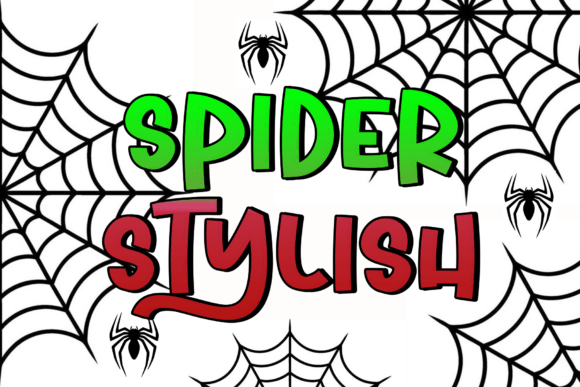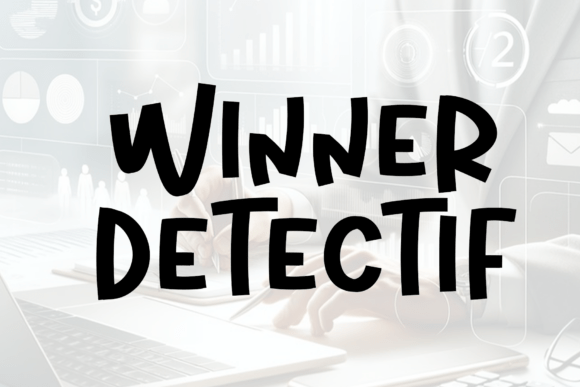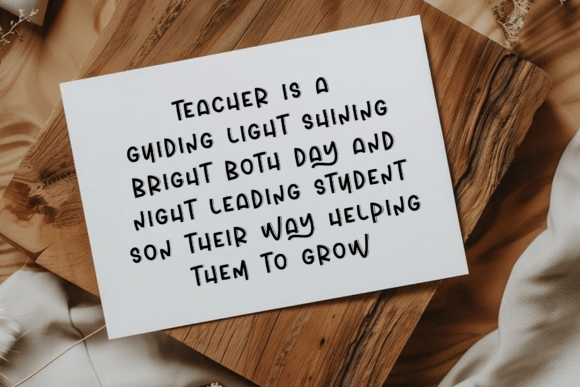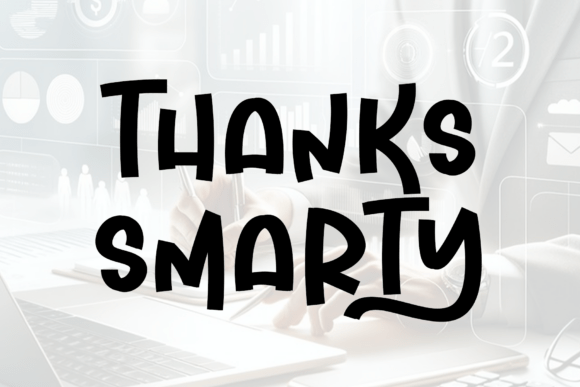
Discover the Charm of Delight Thursday Font: Elevate Your Designs with Elegance
In the world of typography, fonts play a crucial role in conveying messages, evoking emotions, and creating lasting impressions. For designers, crafters, and anyone looking to add a touch of elegance to their projects, Delight Thursday Font is a gem worth exploring. This lovely and timeless display font has been making waves in the design community, and for good reason. In this article, we’ll delve into what makes Delight Thursday Font a standout choice for creating eye-catching logos, branding, and quotes.
The Unique Charm of Delight Thursday Font
Delight Thursday Font is not just another typeface; it’s a masterpiece that brings a unique and beautiful touch to every letter. Its timeless appeal ensures that your designs never go out of style, making it an excellent investment for professionals and hobbyists alike. Whether you’re working on a logo, a branding project, or crafting inspirational quotes, this font is designed to make your work come alive with its elegant and distinctive character.
Why Choose Delight Thursday Font?
So, what sets Delight Thursday Font apart from the myriad of fonts available today? Here are a few reasons why it’s becoming a favorite among designers and crafters:
- Elegant and Timeless: Delight Thursday Font boasts an elegance that transcends fleeting trends. Its classic appeal ensures your designs remain relevant and stylish for years to come.
- Unique Touch: Each letter in the Delight Thursday Font has been crafted with a unique and beautiful touch, offering a level of sophistication and charm that’s hard to find elsewhere.
- Versatile: While it’s a display font, Delight Thursday is versatile enough to be used across various design projects, from logos and branding to quotes and more.
- Eye-Catching: In a world where grabbing attention is half the battle, Delight Thursday Font helps you stand out. Its distinctive style ensures your message doesn’t just get seen—it gets noticed.
Applications of Delight Thursday Font
The versatility of Delight Thursday Font makes it suitable for a wide range of applications. Here are some of the most popular uses:
- Logo Design: A logo is often the first impression of a brand. With Delight Thursday Font, you can create a logo that’s not only memorable but also reflects the elegance and values of your brand.
- Branding: Consistency in branding is key, and using a unique font like Delight Thursday can help establish a strong brand identity across all your marketing materials.
- Quotes and Typography Art: For crafters and designers who love working with quotes and creating typography art, Delight Thursday Font offers the perfect blend of style and readability.
Tips for Using Delight Thursday Font
To make the most out of Delight Thursday Font, consider the following tips:
- Pair it Wisely: While Delight Thursday Font is stunning on its own, pairing it with complementary fonts can enhance its beauty. Look for fonts that offer a nice contrast in style and weight.
- Experiment with Colors: The right color can elevate your design significantly. Experiment with different colors to find the perfect match that makes your text pop.
- Play with Sizes: Delight Thursday Font looks great in various sizes. Don’t be afraid to experiment with different sizes to add depth and emphasis to your designs.
Delight Thursday Font is more than just a typeface; it’s a tool that can transform your designs, giving them a touch of elegance and timelessness. Whether you’re a professional designer or a passionate crafter, this font offers endless possibilities for creativity and expression. With its unique charm, versatility, and eye-catching appeal, Delight Thursday Font is sure to become a staple in your design toolkit. So, why wait? Explore the possibilities of Delight Thursday Font today and take your designs to new heights of elegance and sophistication.